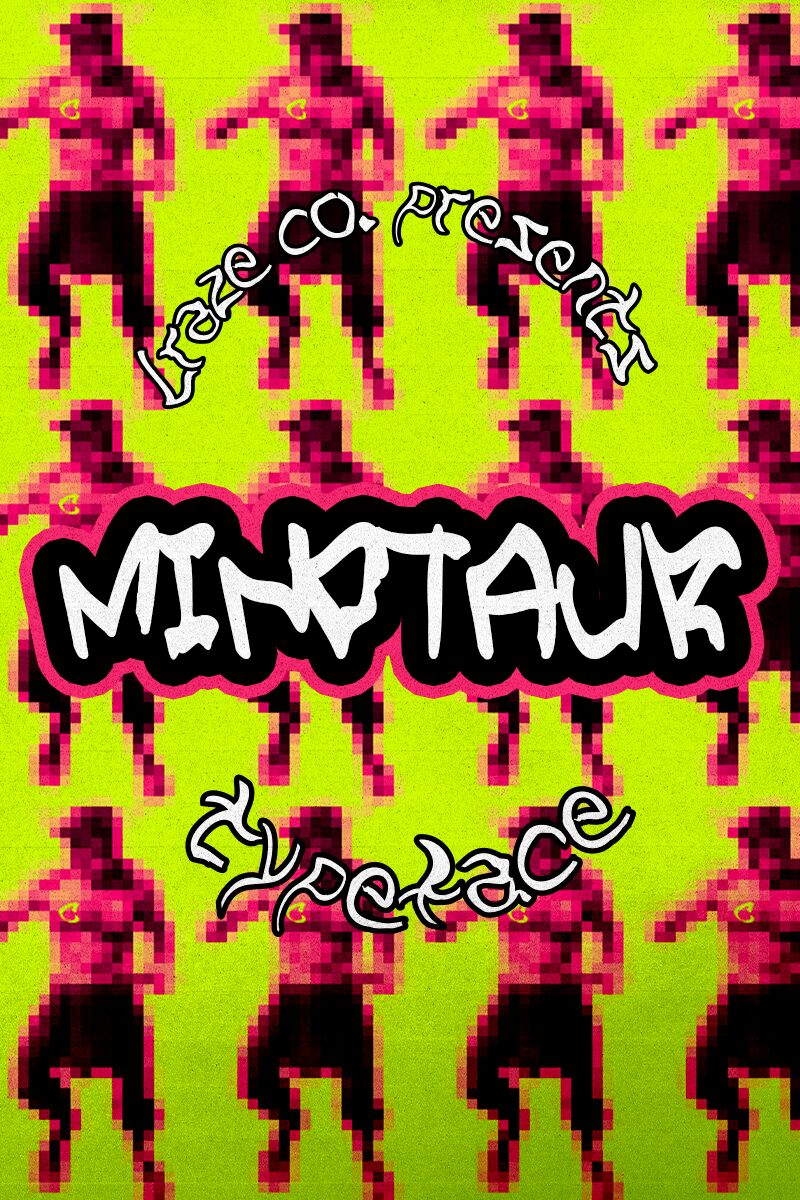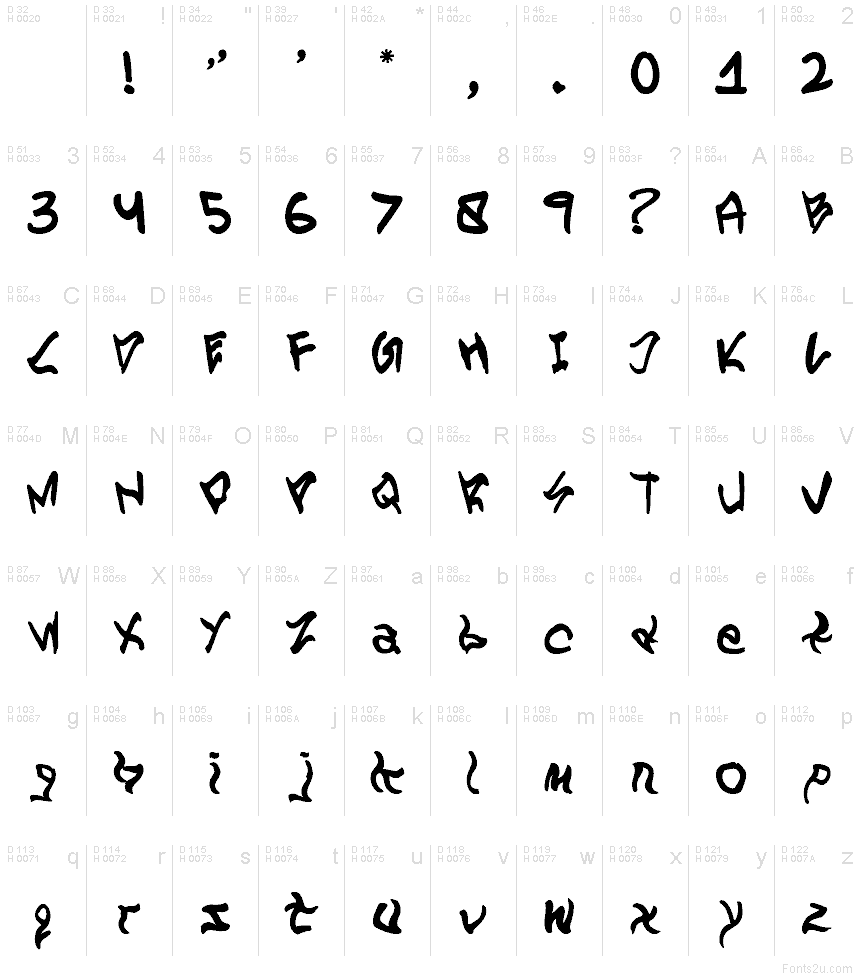
Minotaur font by CrazeCo.com.au is a free graffiti typeface that twists like a single, inky ribbon. Its letters tangle and fuse, with swollen curves and smeared edges that feel freshly brushed on a wall-bold, messy, and wonderfully alive. The rhythm is relentless, pushing words into a tight, energetic stream that reads like motion captured mid-swipe.
Using Minotaur, you get a gritty mark that shines on streetwear logos, album art, underground event posters, horror game titles, skate stickers, and zines. This free font loves big sizes and lots of breathing room; let it be the shout, not the paragraph. Pair it with a plain geometric sans for captions to keep everything legible and sharp.